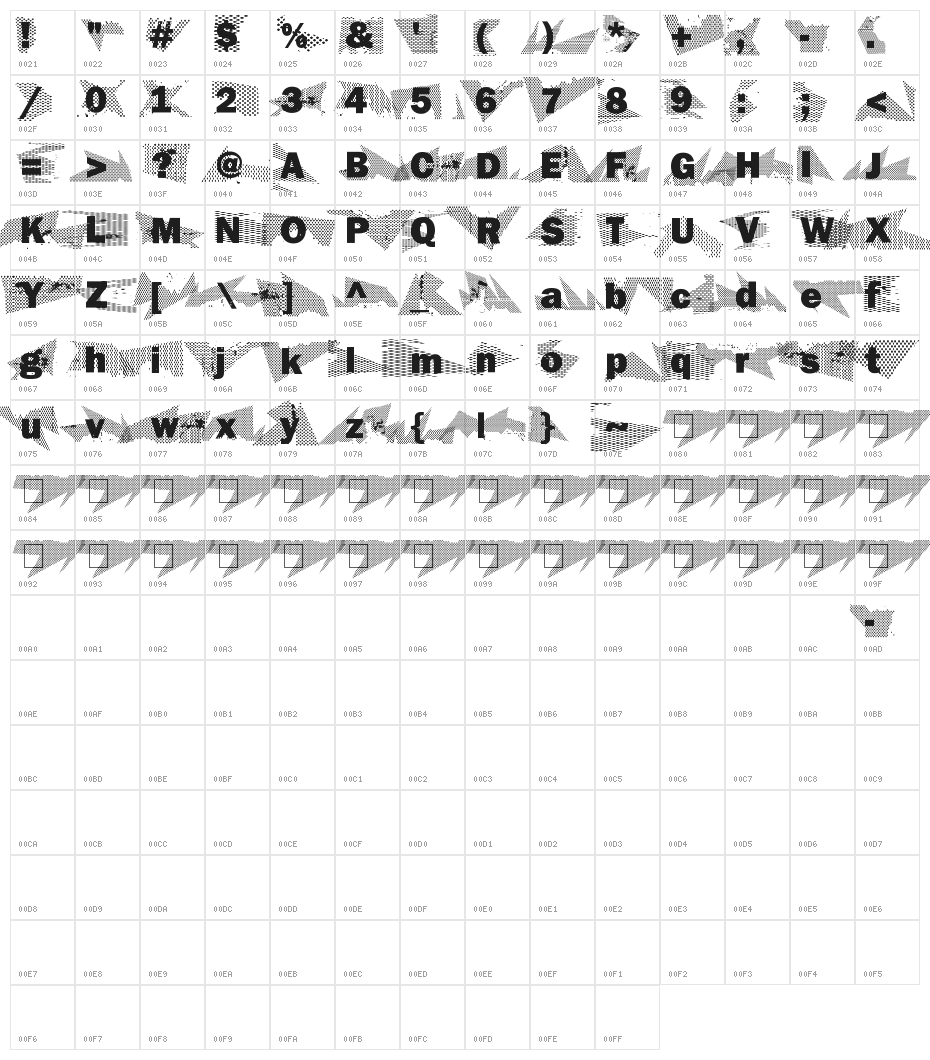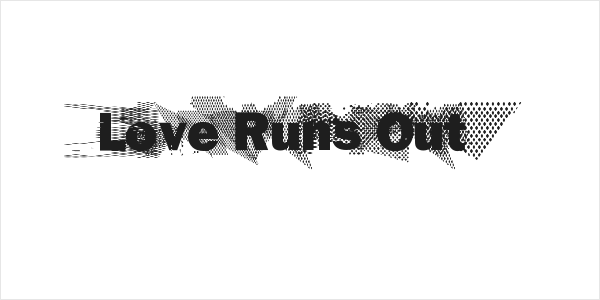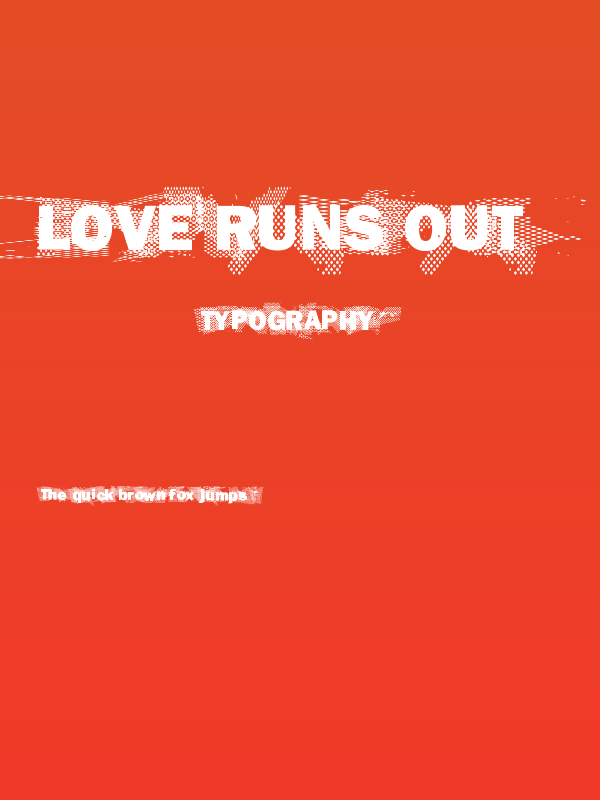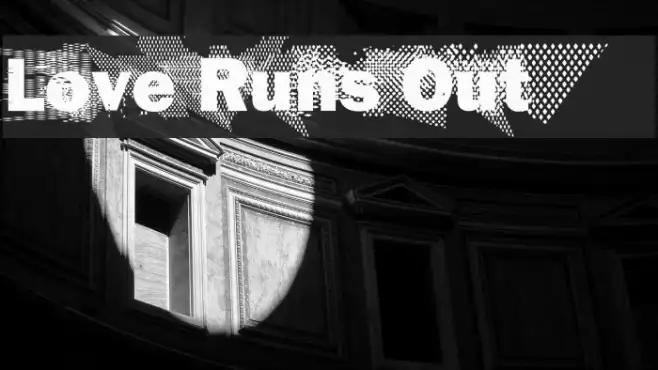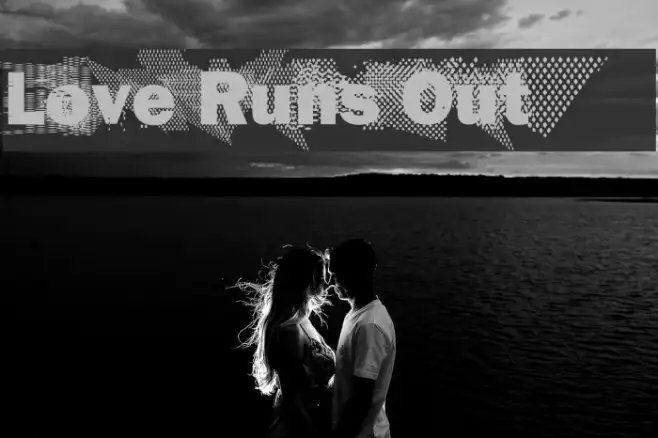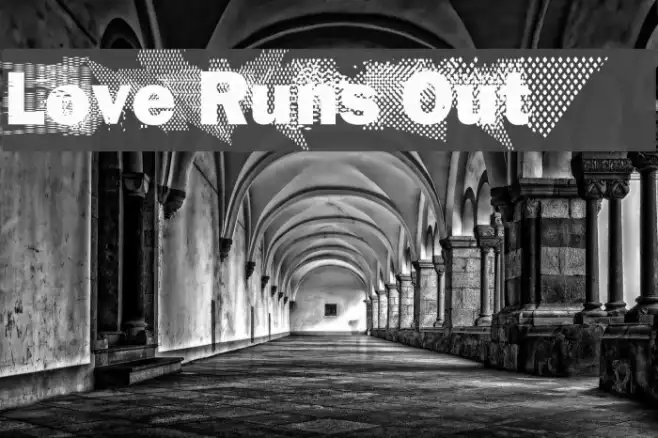
Love Runs Out Font
Love Runs Out Description
This font features a bold and striking design with a unique halftone pattern overlay, giving it a dynamic and textured appearance. The characters are robust and solid, with a modern and edgy feel. The halftone effect creates a sense of movement and energy, making it stand out in any design. The uppercase and lowercase letters maintain a consistent style, while the numbers and special characters are equally bold and impactful. This font is ideal for projects that require a strong visual presence and a contemporary aesthetic.
| Proposed Projects | Ideal for posters, album covers, branding, and any design needing a bold statement. |